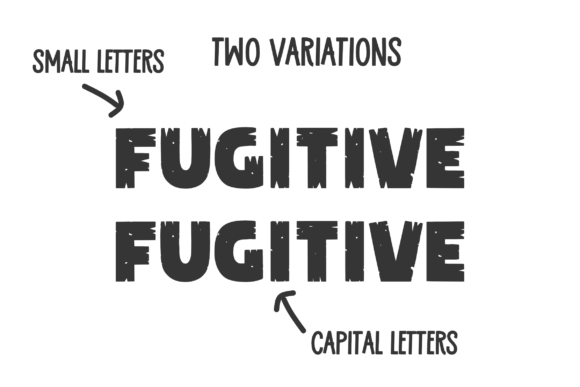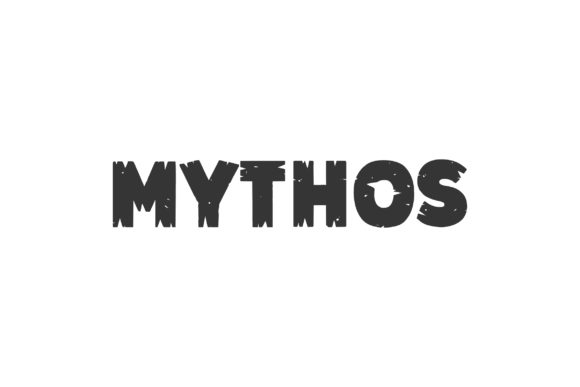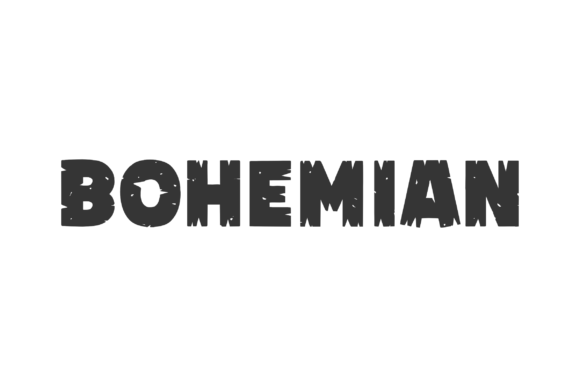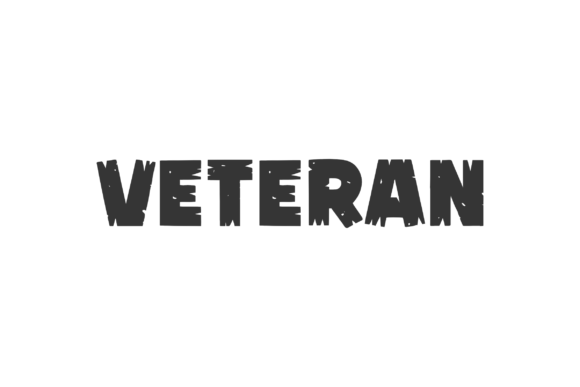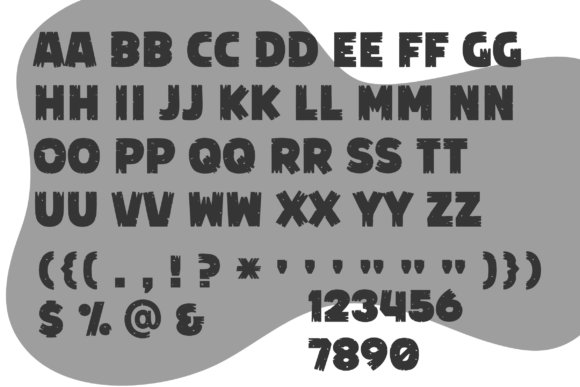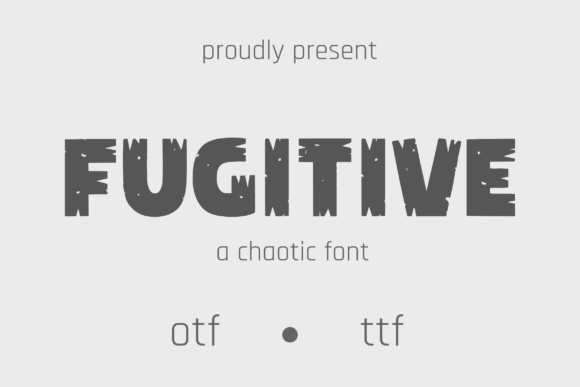
Fugitive Font: Add a Rugged Touch to Your Projects with this Grunge Masterpiece
Are you tired of using the same old fonts in your design projects? Do you want to add a touch of ruggedness and edginess to your creations? Look no further than the Fugitive Font, a carefully crafted grunge font that’s perfect for designers and crafters looking to give their projects a unique and distressed look.
What is Fugitive Font?
Fugitive Font is a grunge font that’s designed to add a rugged and worn feel to your projects. The font features a unique blend of small and upper case letters, each with its own distinct level of distressing and scarring. The result is a font that looks like it’s been through a battle, with rough edges and a worn, vintage feel.
Key Features of Fugitive Font
- Distressed letters: Each letter in the Fugitive Font has its own unique level of distressing, with small and upper case letters featuring different levels of scarring.
- Grunge style: The font has a distinctly grunge feel, with rough edges and a worn, vintage look.
- Versatile: Fugitive Font can be used for a wide range of projects, from design and crafting to scrapbooking and journaling.
Fugitive Font is easy to use and can be incorporated into your projects in a variety of ways. Here are a few ideas to get you started:
- Use it for titles and headings: Fugitive Font is perfect for adding a bold, eye-catching title to your project. Try using it for headings, titles, and captions.
- Add it to your scrapbooking pages: Fugitive Font is a great addition to any scrapbooking page, adding a touch of ruggedness and edginess to your photos and journaling.
- Use it for crafting projects: Fugitive Font can be used for a wide range of crafting projects, from card making to journaling and paper crafting.
Why Choose Fugitive Font?
So why choose Fugitive Font over other grunge fonts on the market? Here are a few reasons:
- Unique design: Fugitive Font has a unique and distinctive design that’s sure to set your projects apart from the crowd.
- High-quality: The font is carefully crafted to ensure that it’s of the highest quality, with clear and crisp lines.